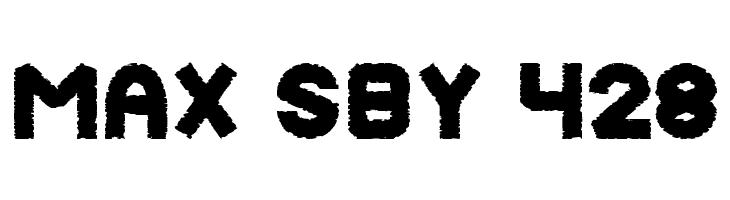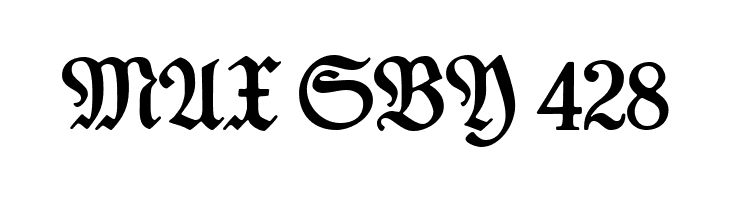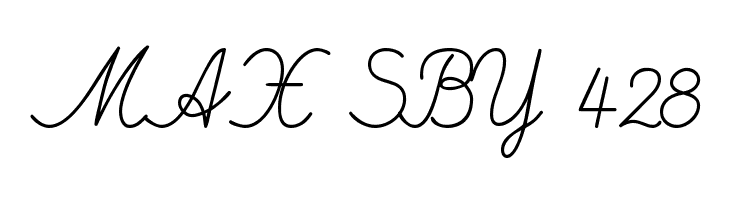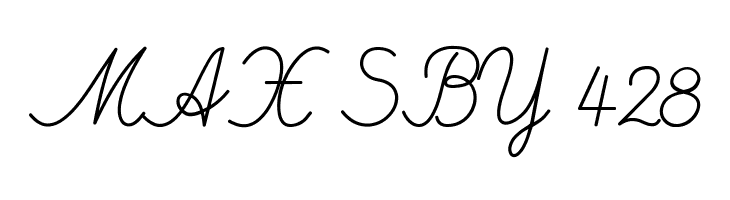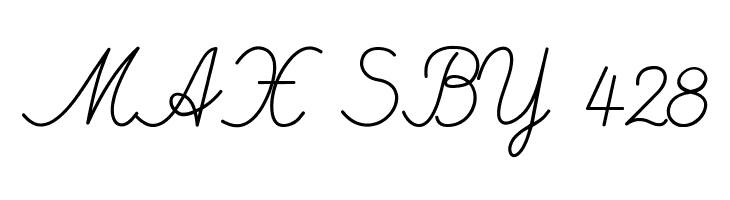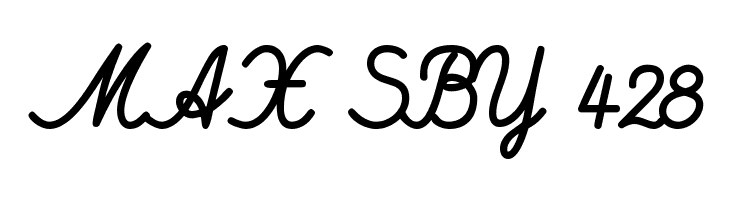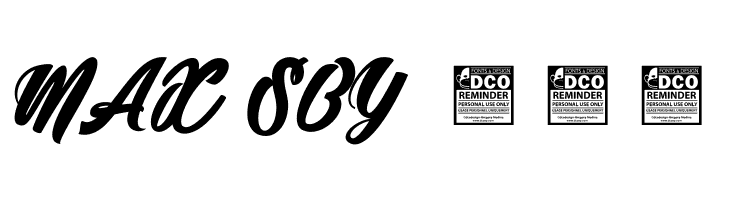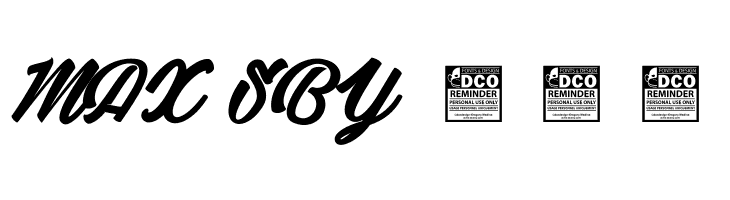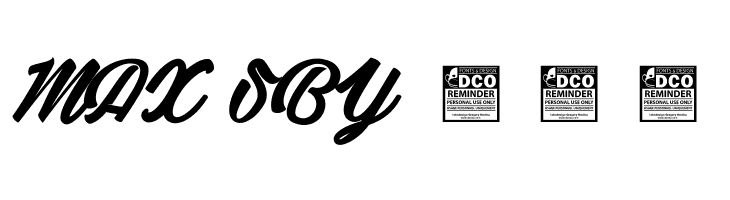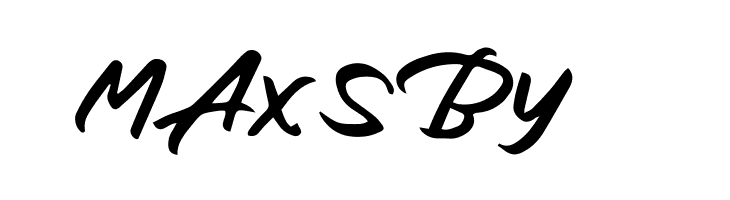
A creative font designed to resemble pencil drawings, ideal for educational themes.
A diverse set of ornamental and symbolic pictograms in bold black silhouettes.
A decorative dingbat collection with abstract, geometric, and illustrative icons.
A bold, geometric font with rounded edges, offering a modern and futuristic look.
A bold, geometric font with rounded edges and a modern, futuristic style.
An artistic and decorative font with each character enclosed in a detailed emblem.
A collection of ornate and decorative elements with vintage and classical influences.
Abstract, decorative dingbat font with surreal face and shape illustrations.
A bold, graffiti-inspired font with angular, geometric letterforms.
A traditional Blackletter font with ornate, medieval-inspired design.
A decorative Blackletter font with intricate and ornate gothic design.
A modern, elongated font with a sleek and futuristic design.
A bold, textured font with a distressed, grunge style.
A whimsical and artistic script font with a handwritten appearance.
An artistic script font with flowing, cursive-like lowercase letters.
A bold, distressed font with a rugged, vintage appearance.
A bold, cursive font with fluid, connected strokes and a handwritten style.
A bold, cursive font with interconnected characters and a flowing, elegant style.
A bold, cursive font with elegant, sweeping curves and high contrast.
A bold, cursive font with interconnected, flowing characters.
Casual handwritten script with smooth, flowing strokes and slight slant.
A bold, cursive font with dynamic curves and expressive loops.
A bold, dynamic script font with interconnected letters and elegant flourishes.
A classic cursive font with elegant, flowing lines and uniform stroke thickness.
A classic cursive font with elegant, flowing lines and seamless letter connections.
A flowing, cursive script font with a sophisticated and graceful style.
A graceful, flowing script font with an elegant, italicized style.
An elegant cursive script font with flowing, connected characters.
A classic cursive font with elegant, flowing lines and a sophisticated style.
A bold, cursive script font with interconnected letters and a flowing style.
A bold, cursive font with interconnected letters and a strong visual presence.
A sophisticated, flowing script font with elegant loops and high contrast.
A decorative font with devilish figures encased in circles, offering a spooky and thematic style.